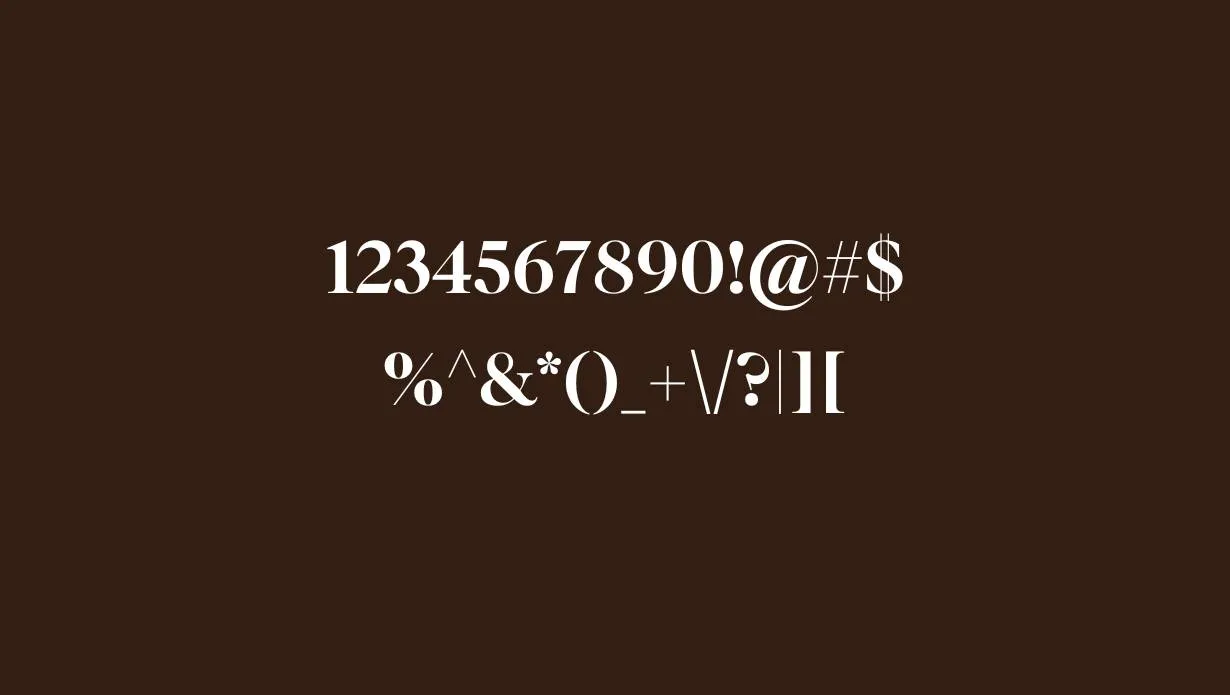
Discover the classic **Caslon Font** from the old Serif font family, crafted by William Caslon and released by Caslon Type Foundry in London from 1692 to 1799. Uncover the rich history and timeless elegance of this beloved typeface, perfect for those seeking a touch of vintage charm in their designs. Explore the roots of typography with Caslon Font and add a sophisticated flair to your projects. Keep reading to learn why this historical font remains highly regarded even today.
The designer worked in classical Serif letter designs and created characters that looked like writing with a pen.
Caslon Font Family
Due to its strong and high quality, it has a big status that makes it perfect for lengthening passages of text. It has a fine difference between thick and thin lines, serifs are always twin, and head serifs are turned.